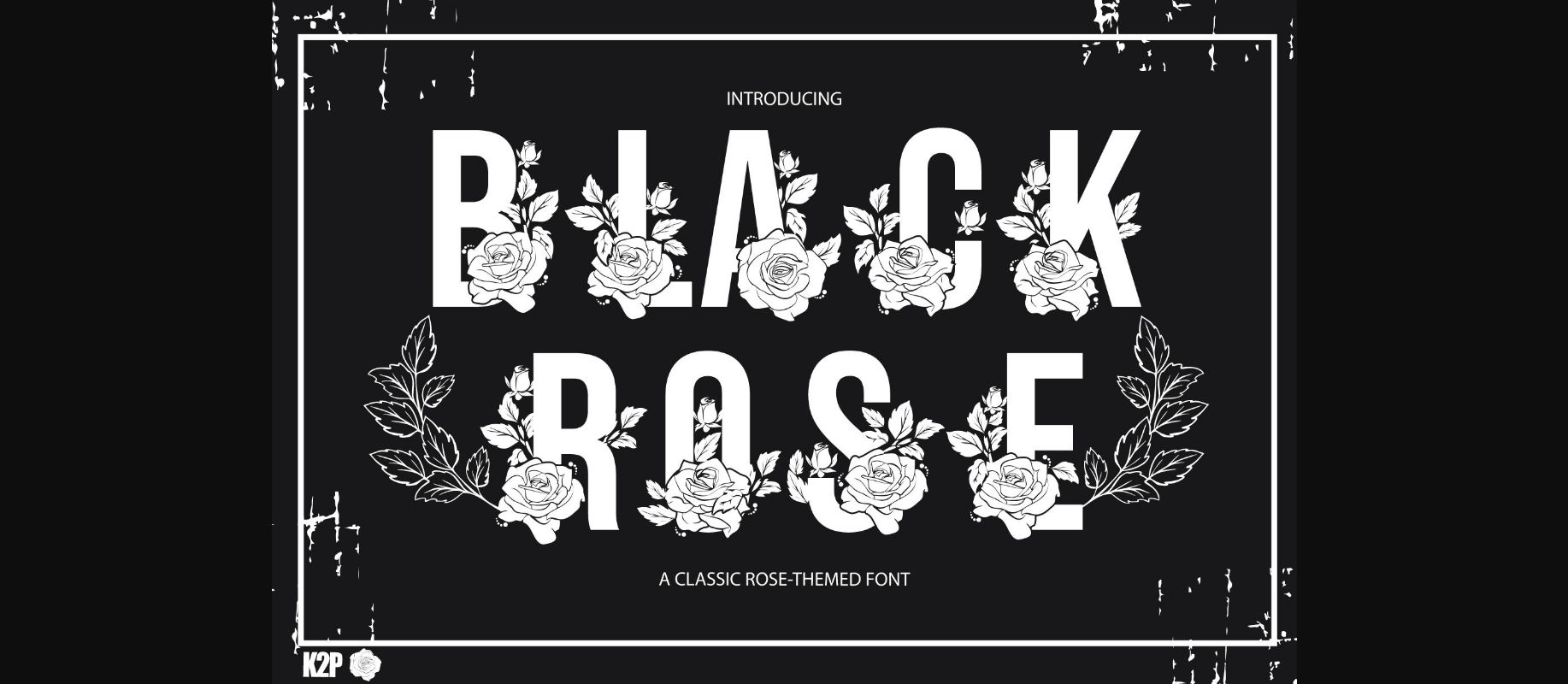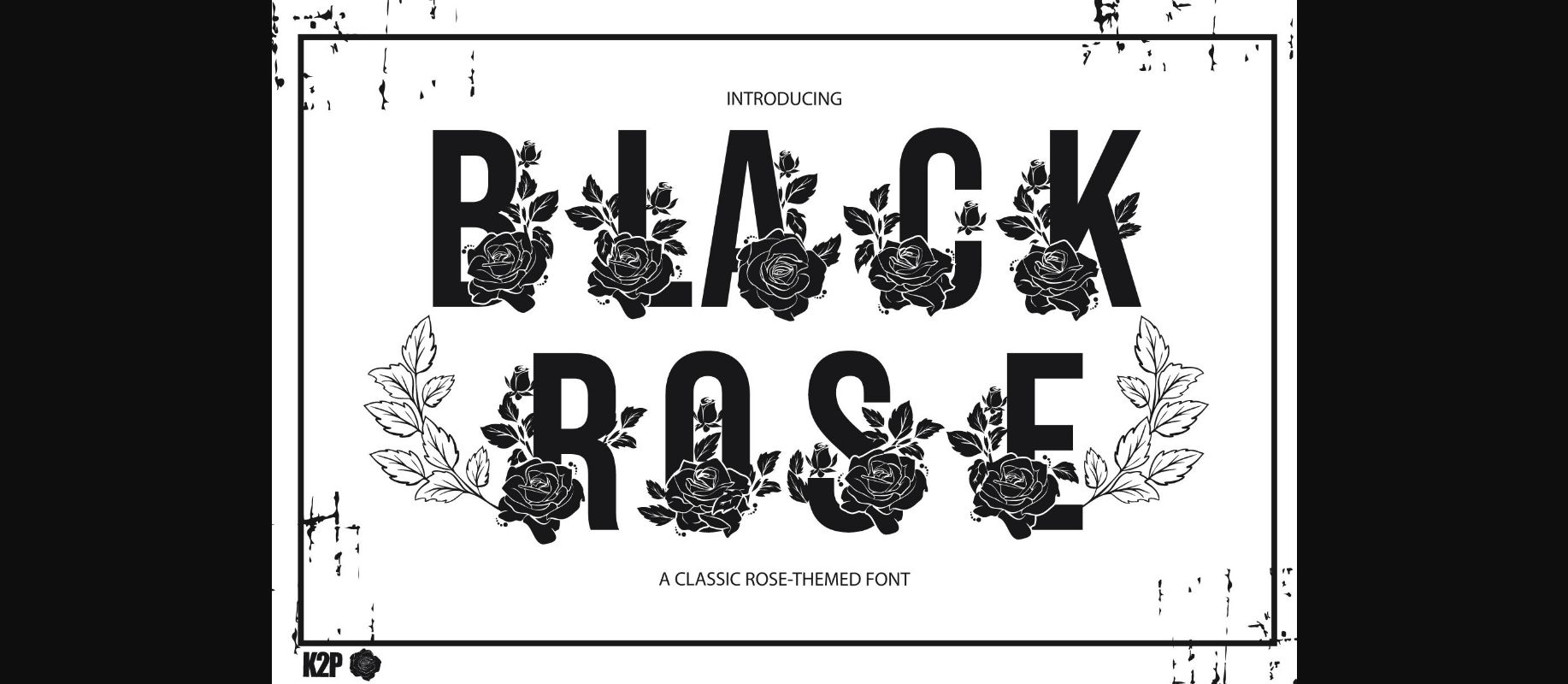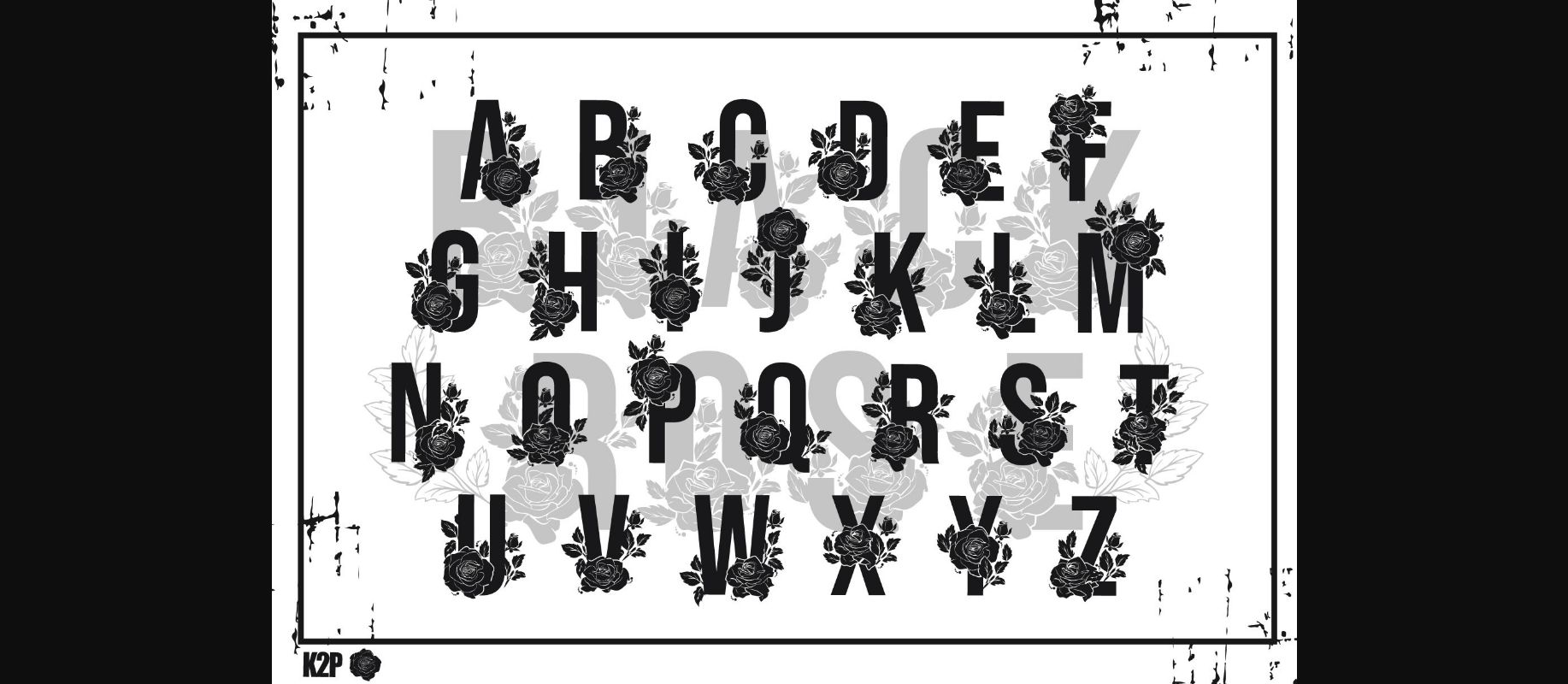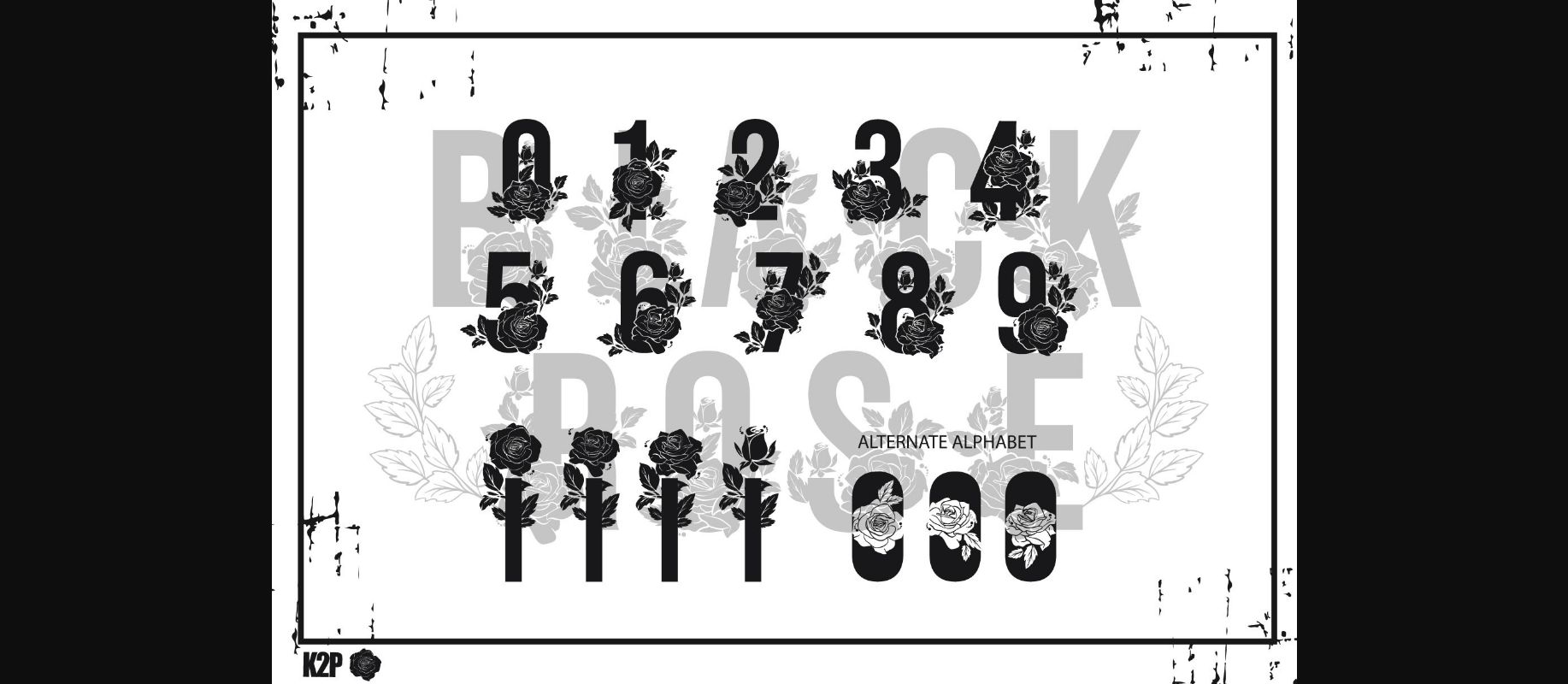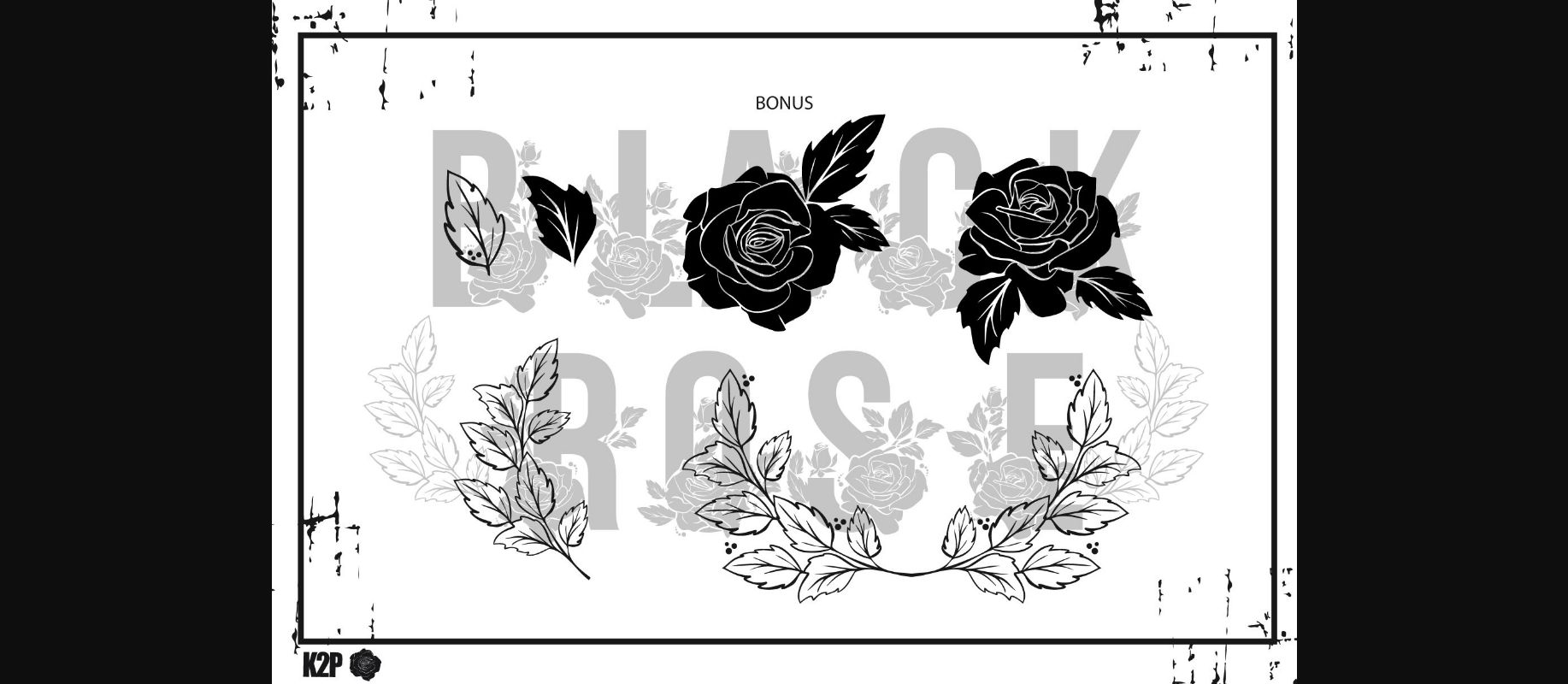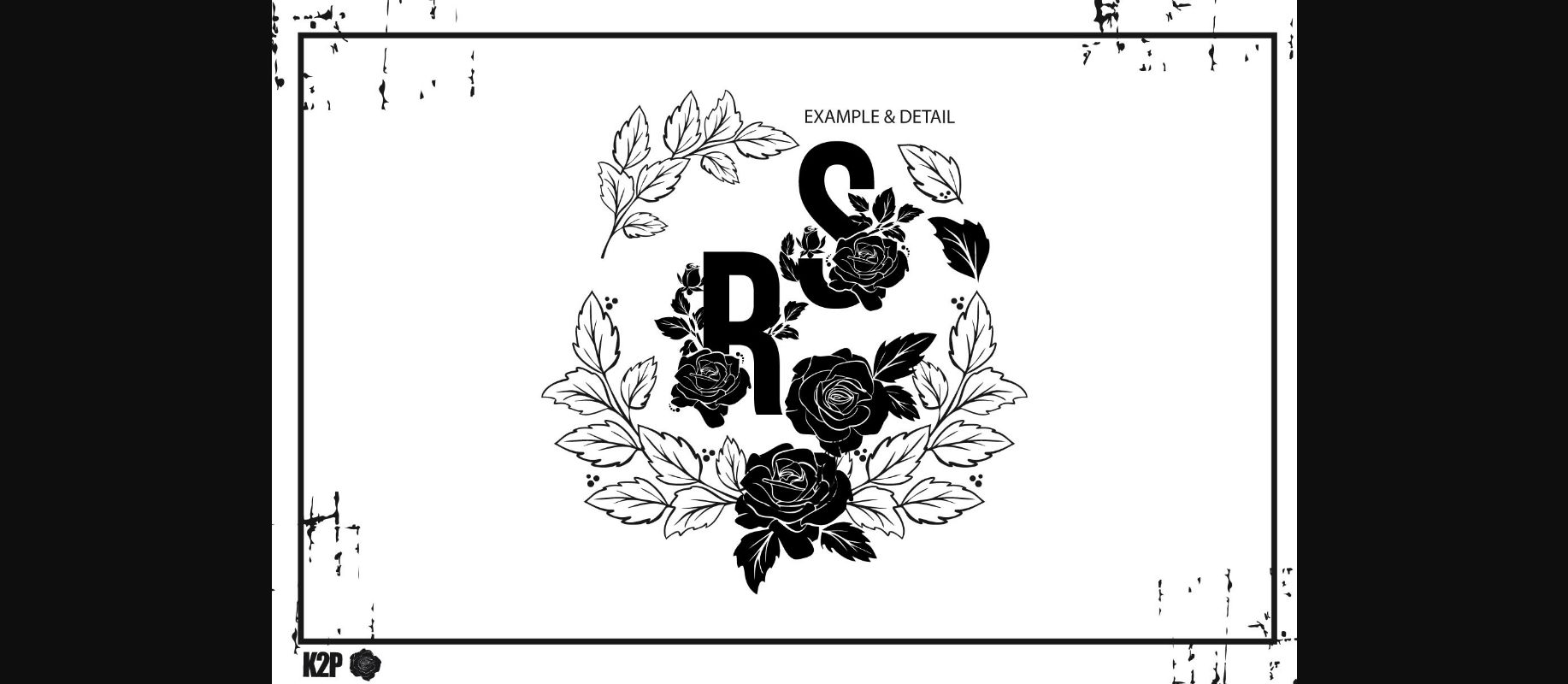
Black Rose Font
About Black Rose Font
Black Rose is a bold and incredibly elegant decorative font, featuring lovely flowers as ornaments. This original look will appeal to a wide range of crafty ideas, from letterheads and titles to stationery.